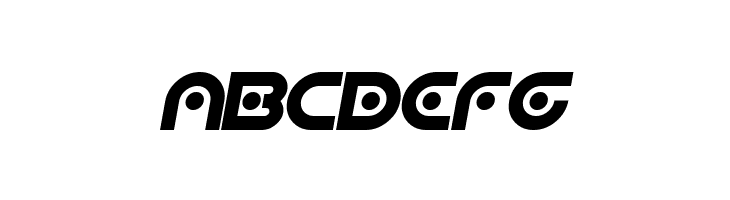
Alexis Semi-Italic Font
- Font: Alexis Semi-Italic
- Weight: Semi-Italic
A bold, futuristic geometric font with smooth, rounded edges.
A sleek, modern italic font with smooth curves and a dynamic appearance.